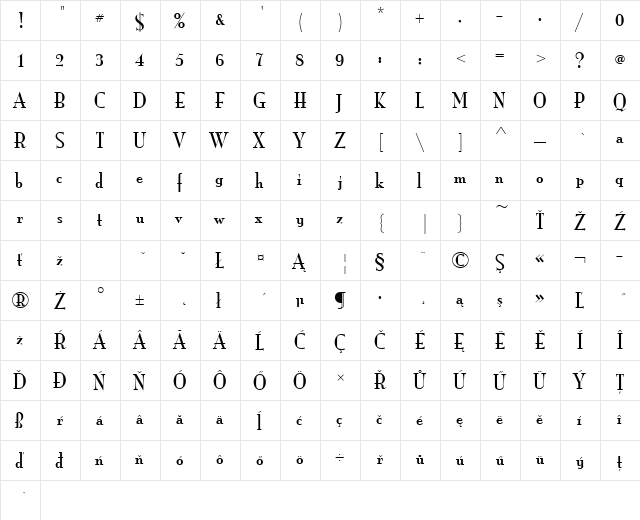
MonaLisSolItcDEE Regular
Design Context for MonaLisSolItcDEE Typeface
MonaLisSolItcDEE offers clean, dependable letterforms without strong stylistic allegiance, making it a practical choice for designers who need flexibility.